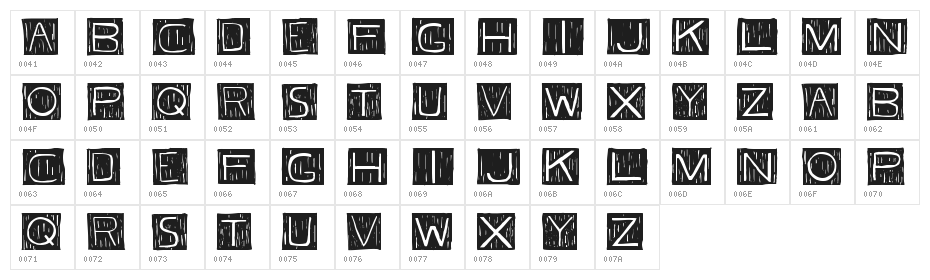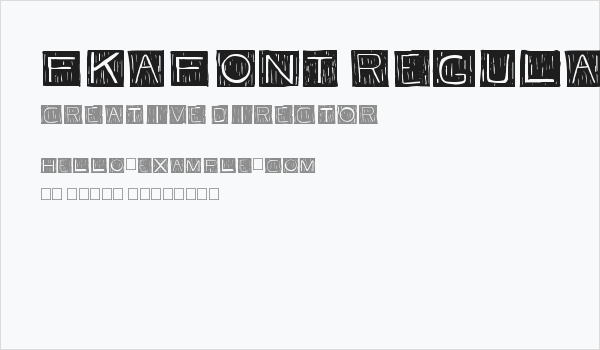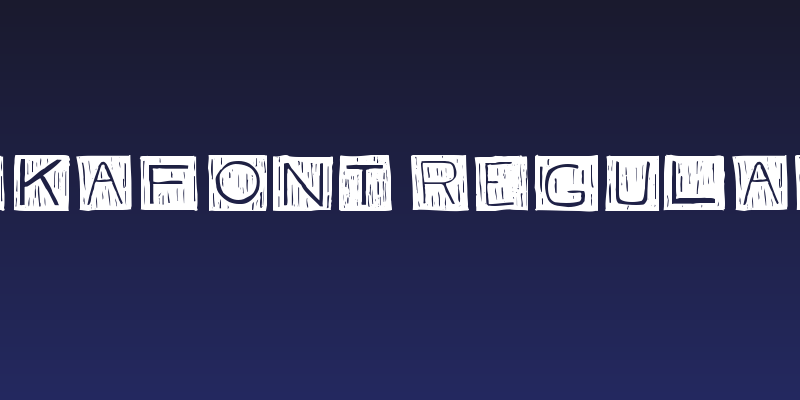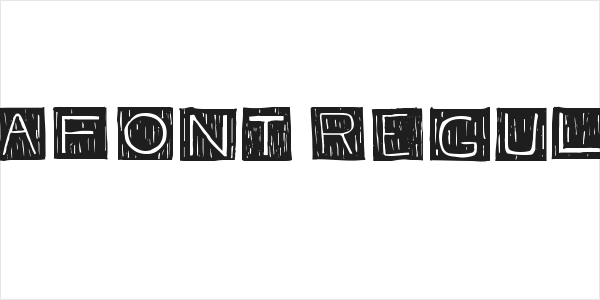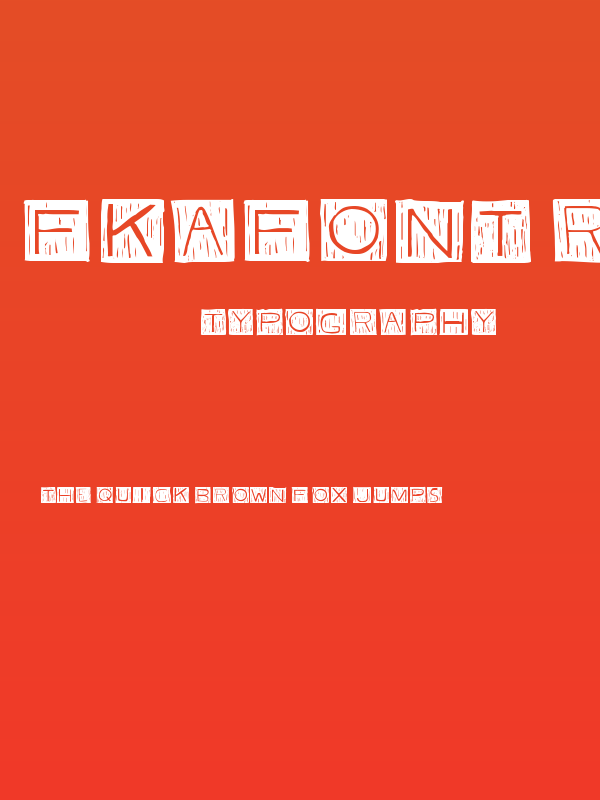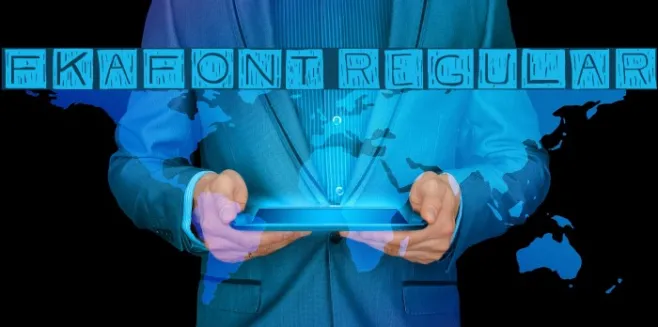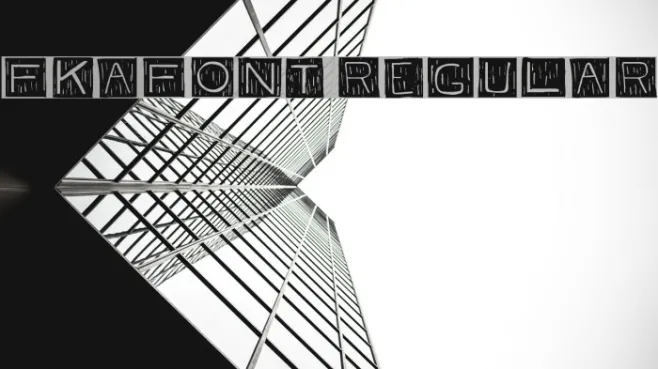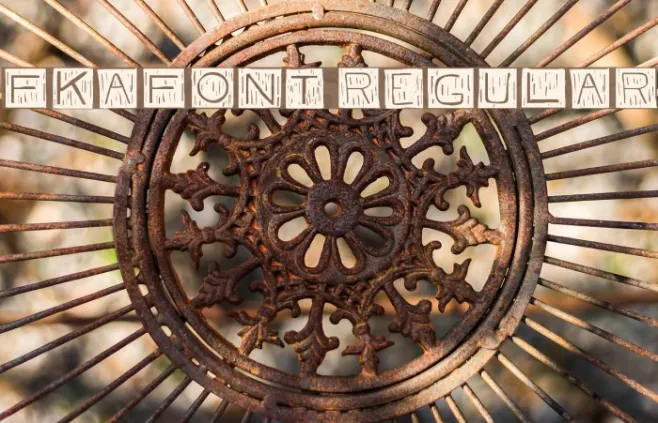
FKAFont Regular Font
FKAFont Regular Description
This font features a bold, distressed style with a hand-drawn appearance. Each character is enclosed in a square, giving it a unique, boxed look. The texture within the letters is rough and uneven, adding a sense of ruggedness and individuality. The uppercase letters are prominently displayed, while the lowercase and numerical characters are not visible in the image. The font's decorative nature makes it stand out, suitable for projects that require a strong visual impact. Its distinctive style is reminiscent of vintage or grunge aesthetics, perfect for creative and artistic designs.
| Overall Style | Vintage, Grunge |
| Proposed Projects | Ideal for posters, album covers, branding, and creative projects requiring a bold statement. |